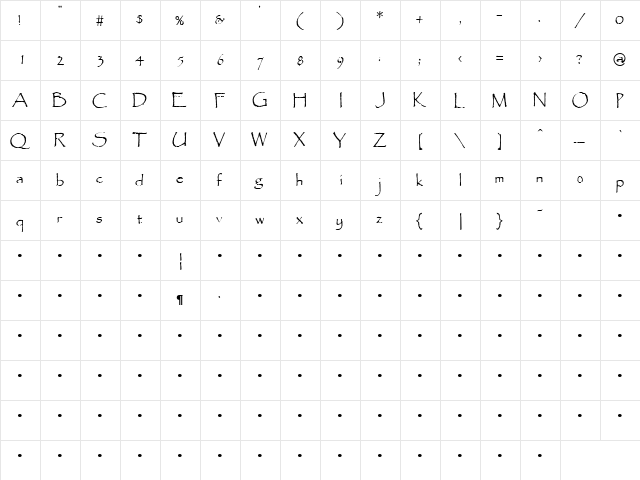
QTPandora Regular
Design Context for QTPandora Typeface
QTPandora offers clean, dependable letterforms without strong stylistic allegiance, making it a practical choice for designers who need flexibility.
Pro Tip: Use QTPandora in both headline and body roles to test its range before committing to a single application.